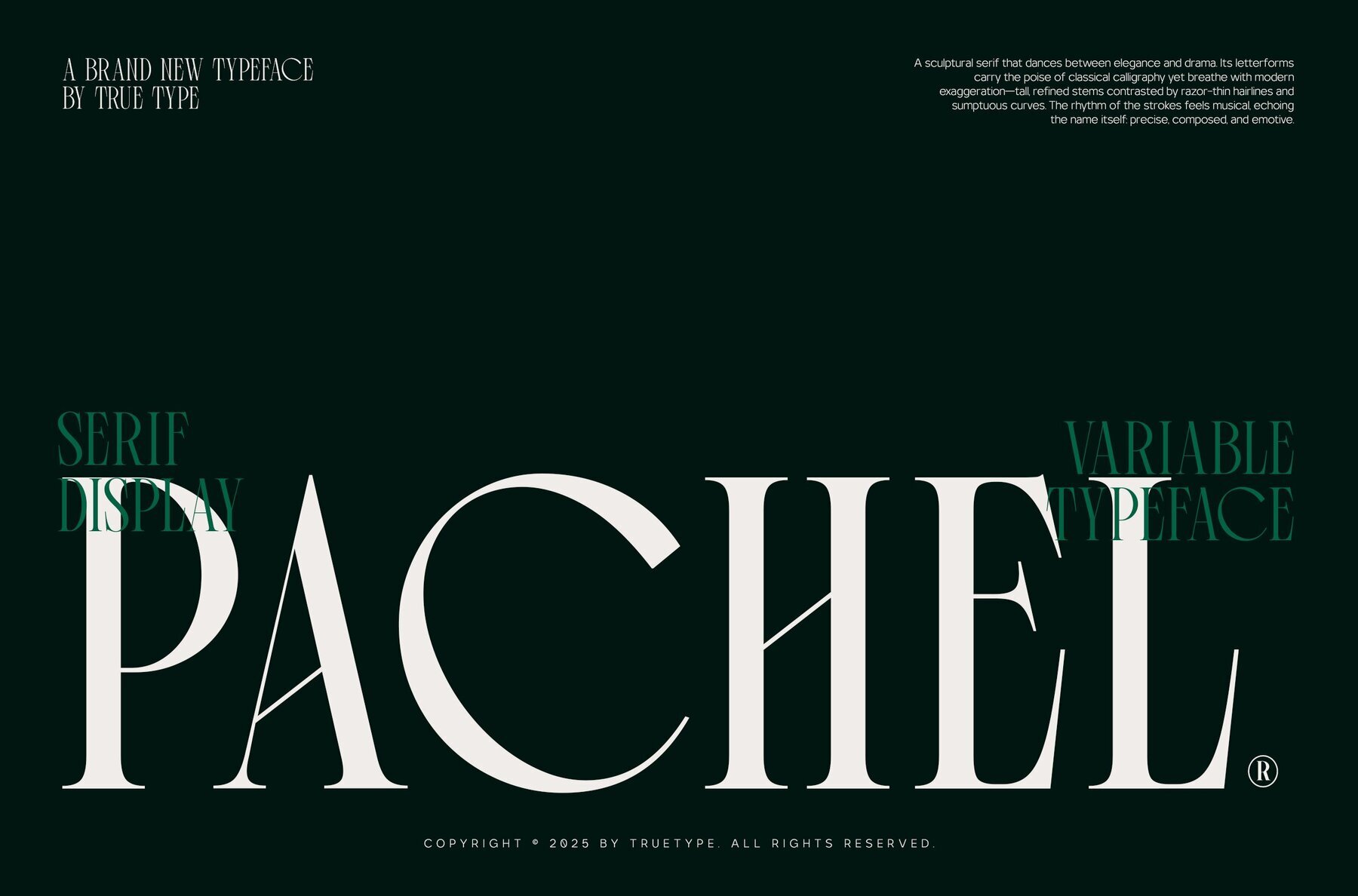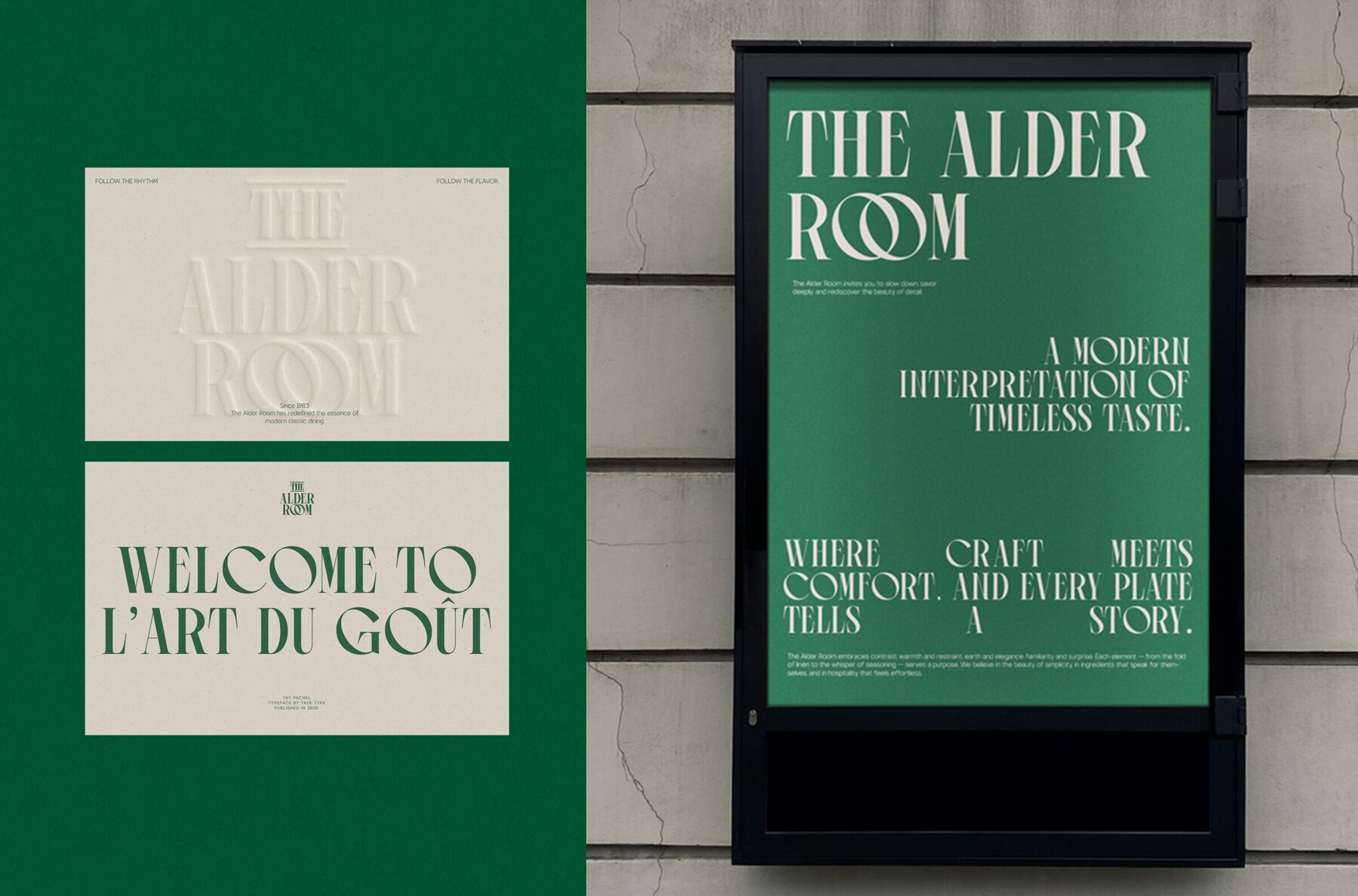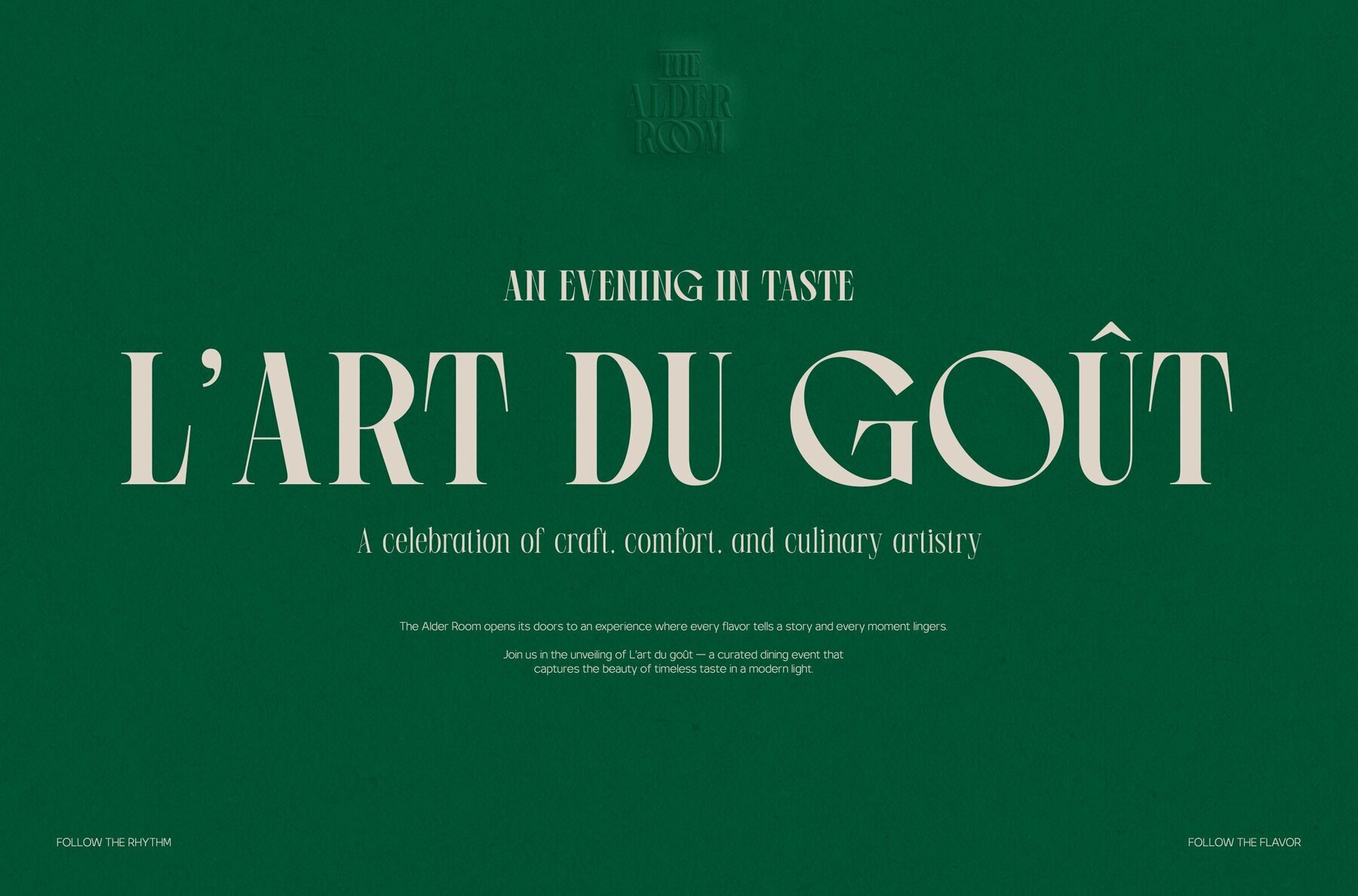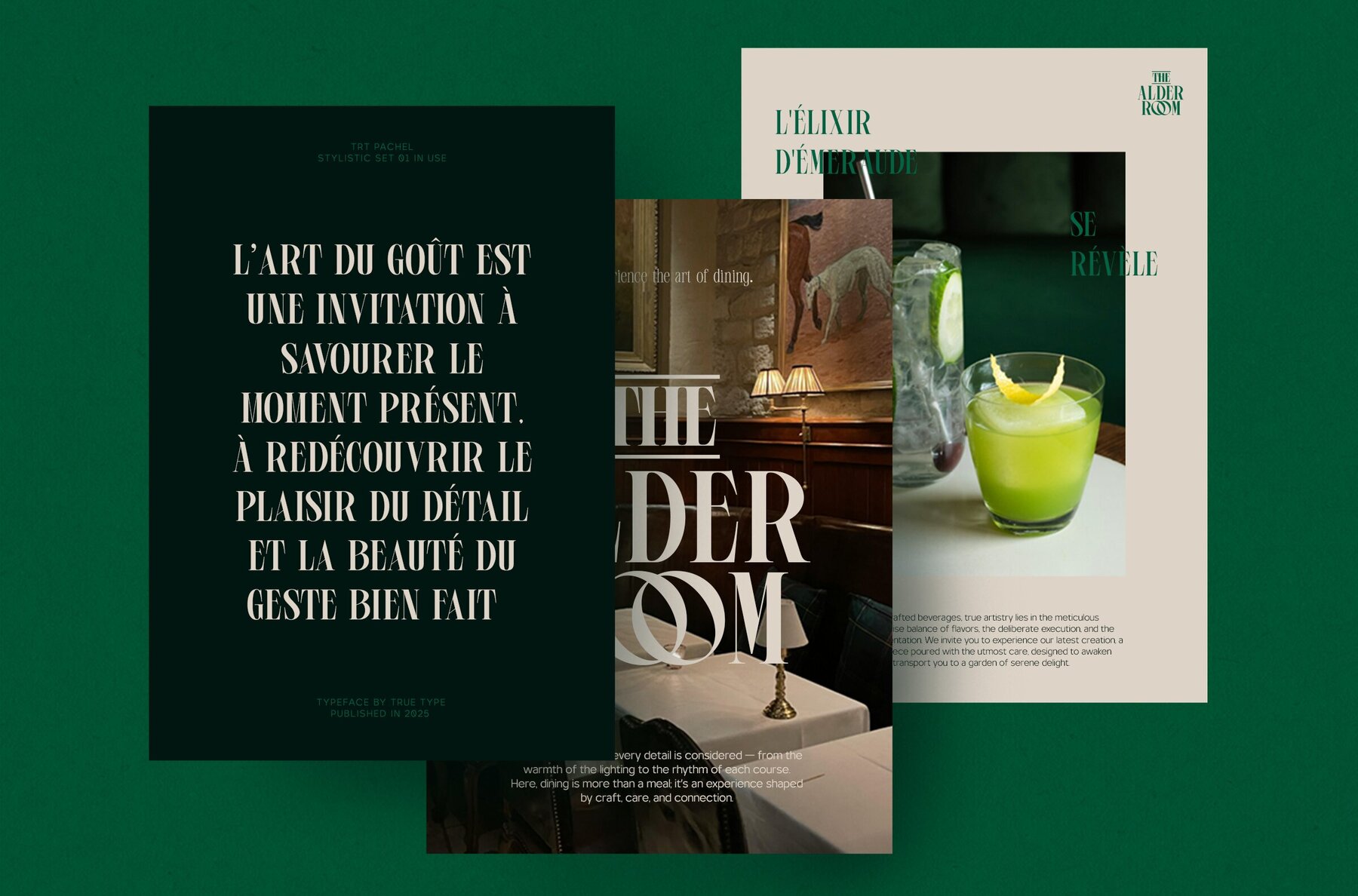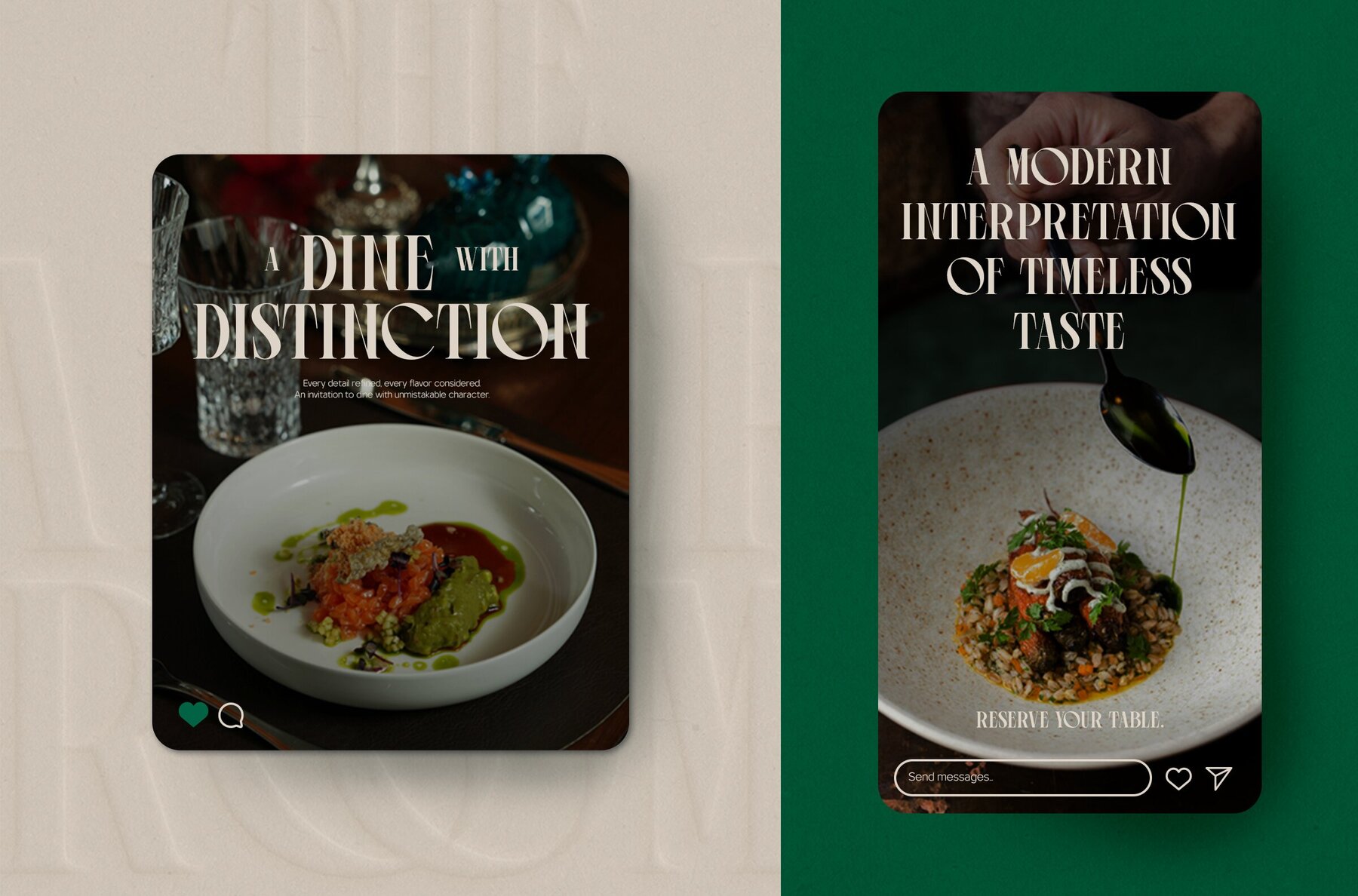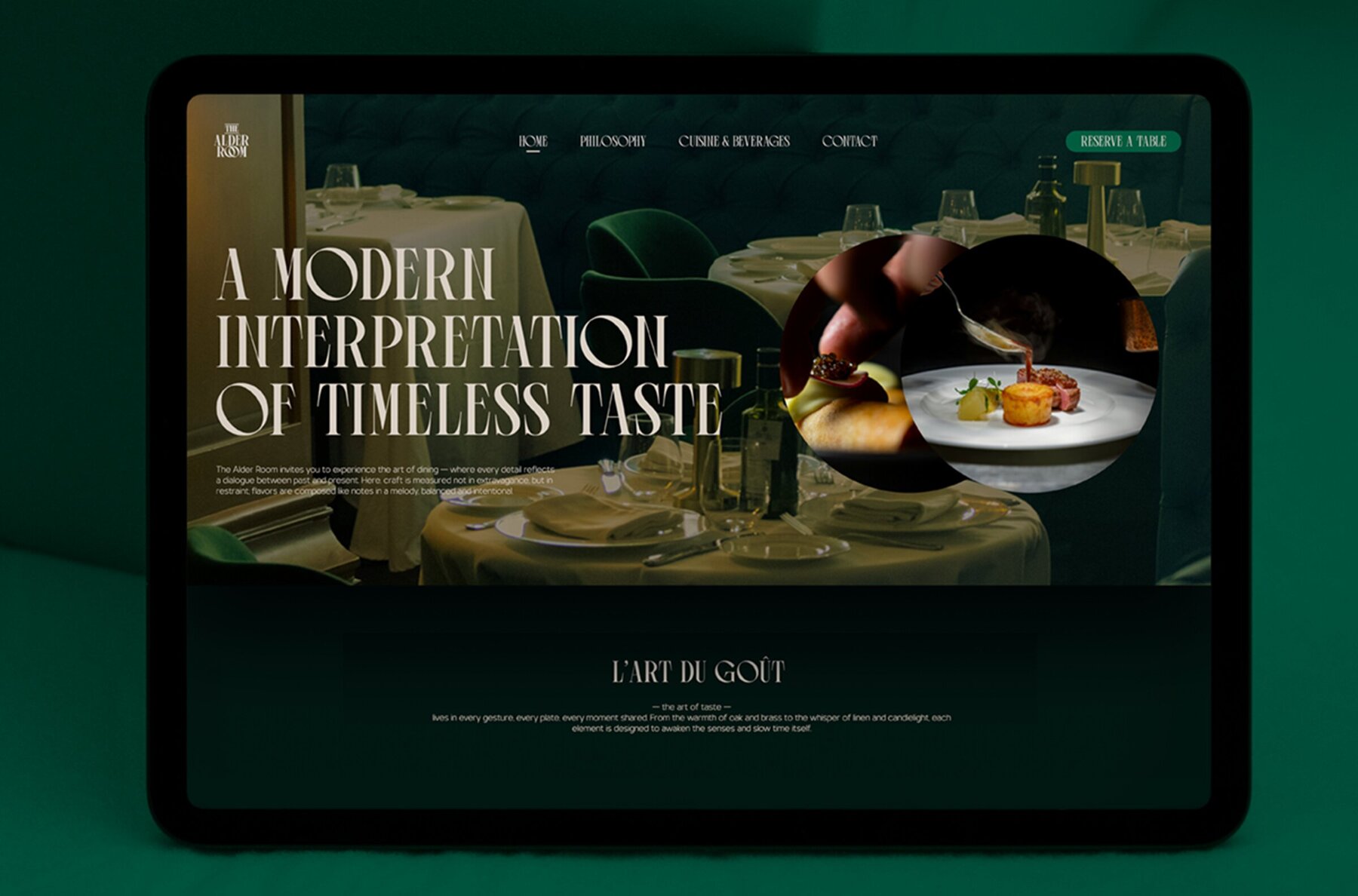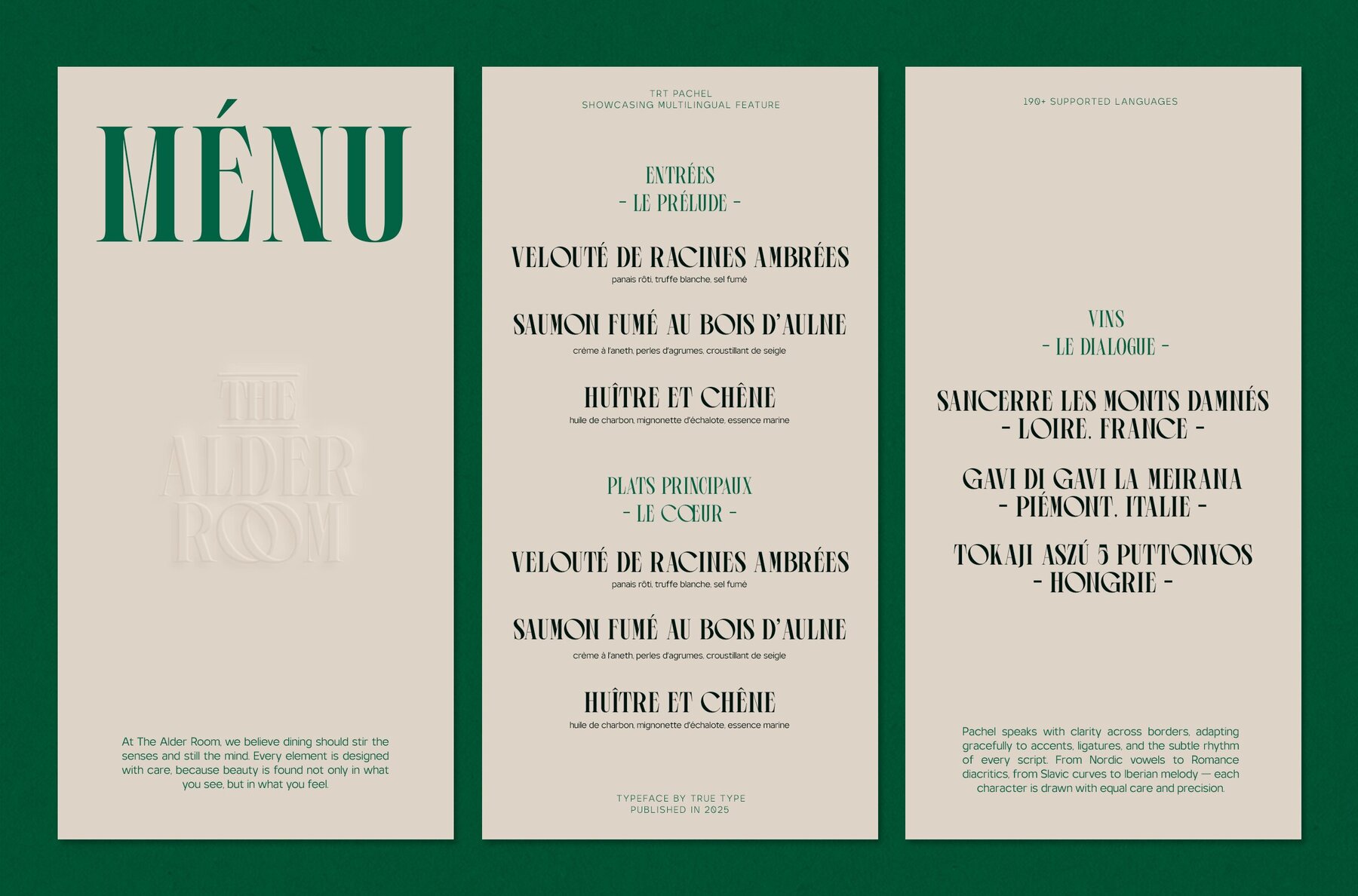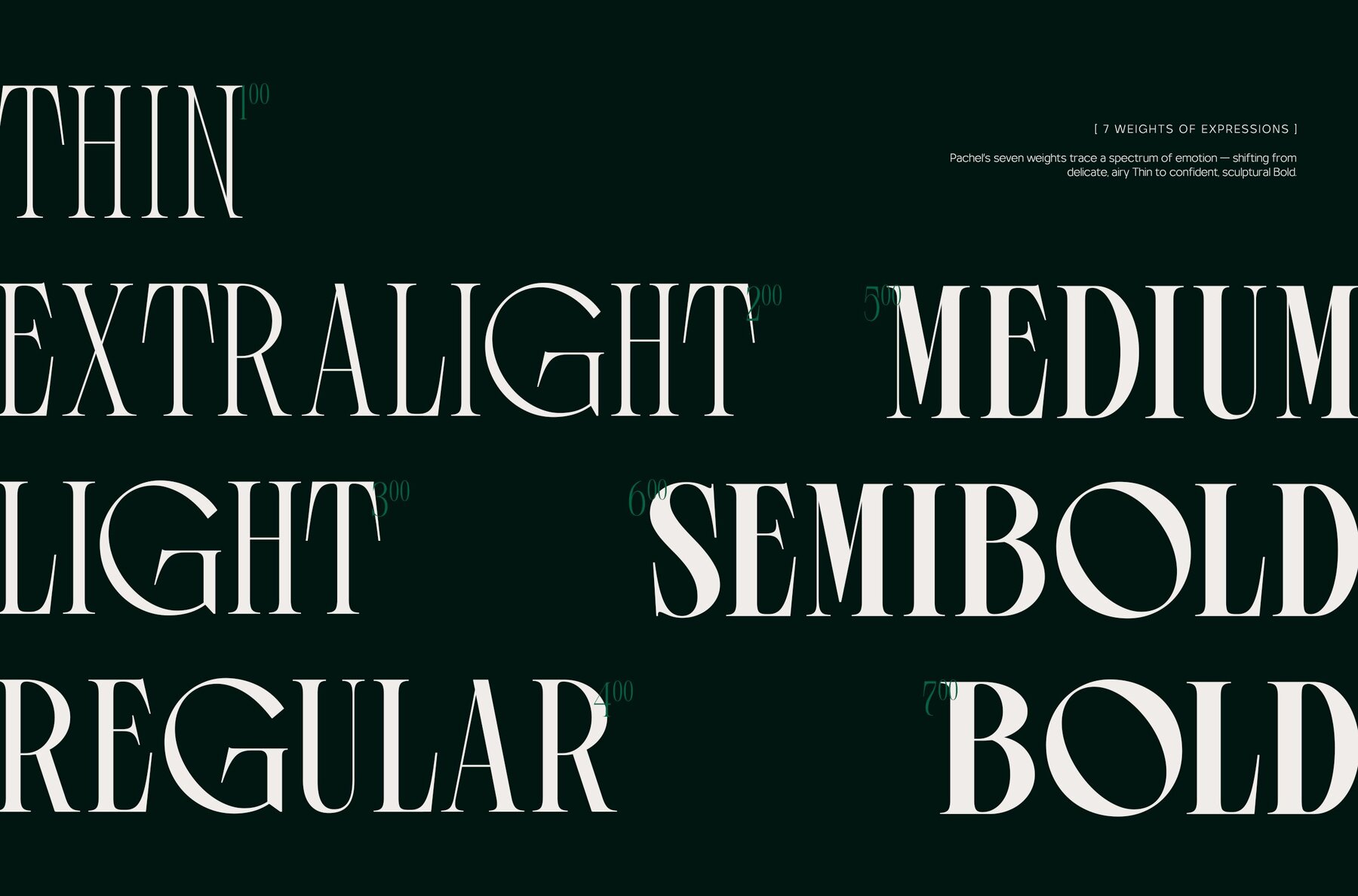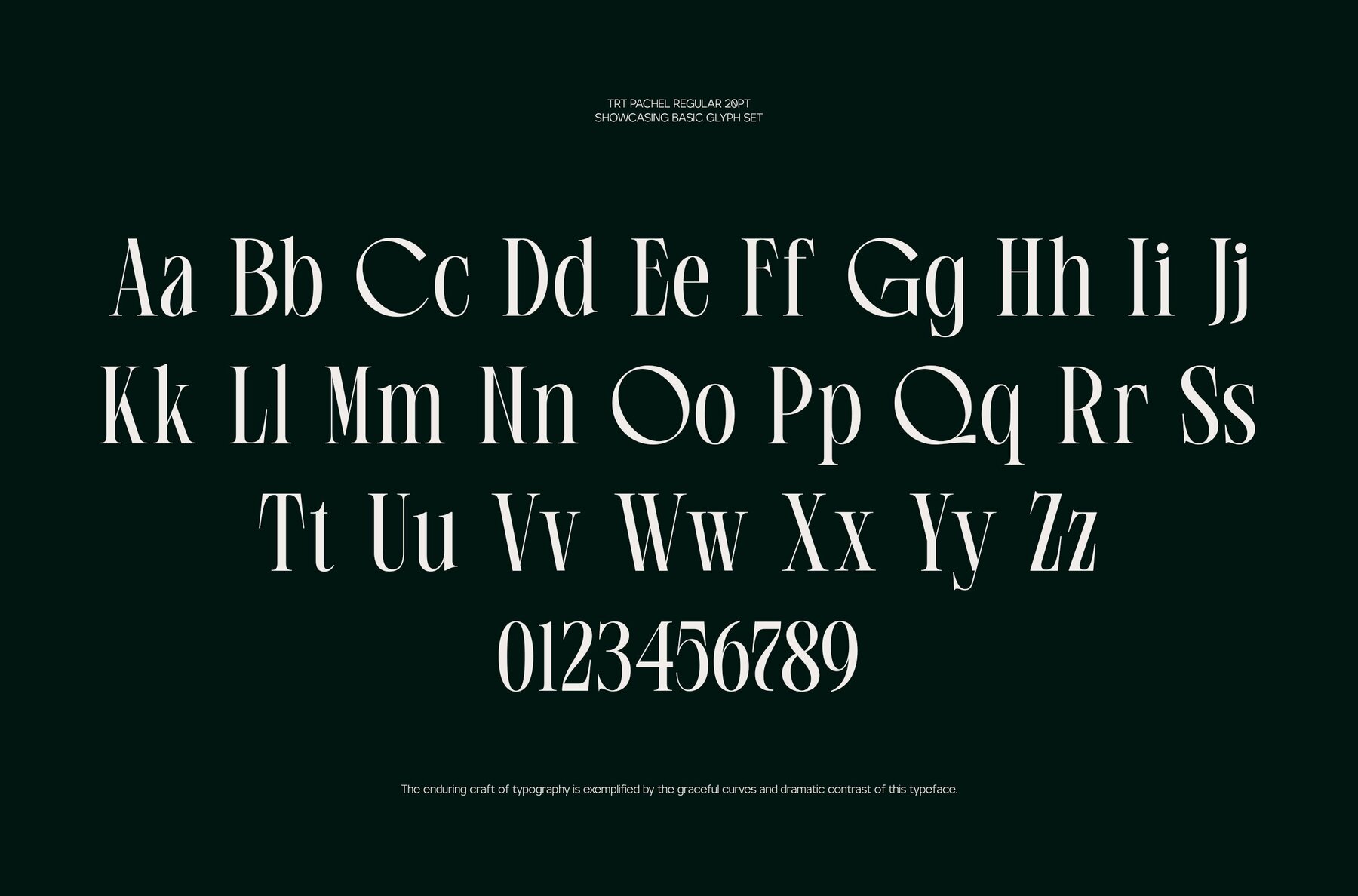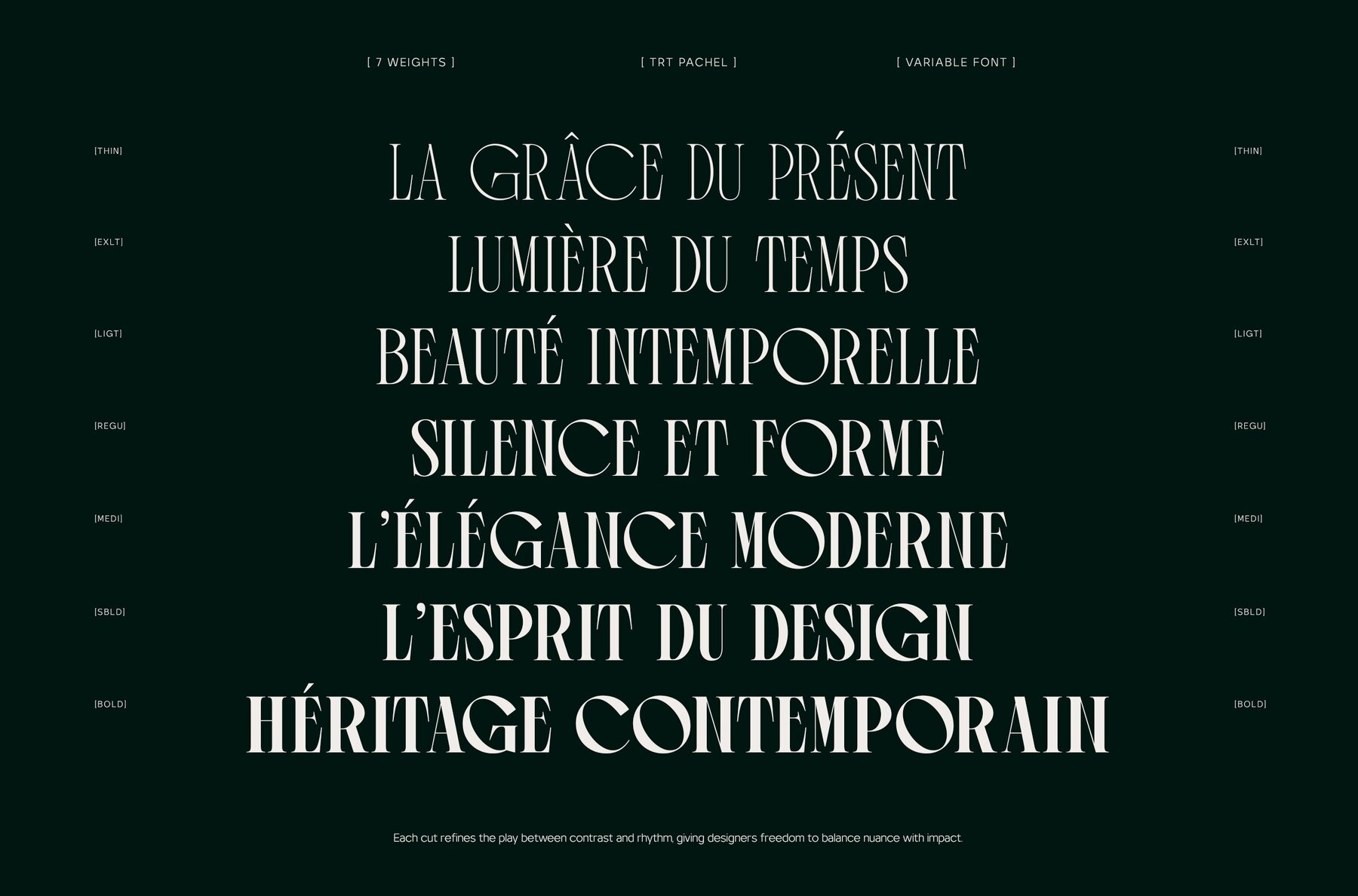
TRT Pachel Font
TRT Pachel Thin
TRT Pachel Extra Light
TRT Pachel Light
TRT Pachel Regular
TRT Pachel Medium
TRT Pachel Semi Bold
TRT Pachel Bold
TRT Pachel offers a refined serif font tailored for those who demand elegance in visual communication. This high-contrast typeface balances classic proportions with contemporary detailing, making it an enduring choice for editorial layouts, upscale restaurant branding, and distinguished visual identities. Its distinctive curves and expressive ligatures add clarity and poise to any application, whether in print or digital environments. Every element of TRT Pachel is designed for clarity and distinction, ensuring your projects stand out without sacrificing sophistication. The font's versatility lends itself seamlessly to logos, fine dining menus, magazines, and boutique branding materials. Graphic designers seeking nuance and style will find TRT Pachel a valuable addition to their toolkit.TRT Pachel: High-Contrast Serif for Sophisticated Branding